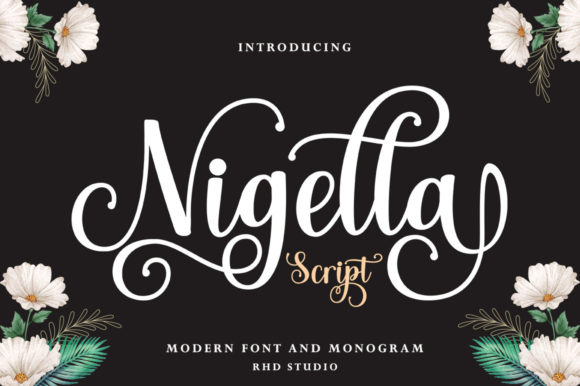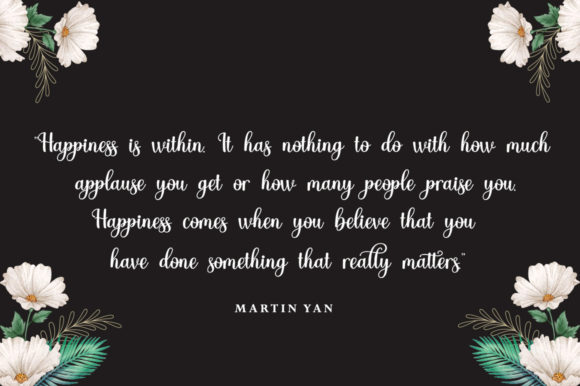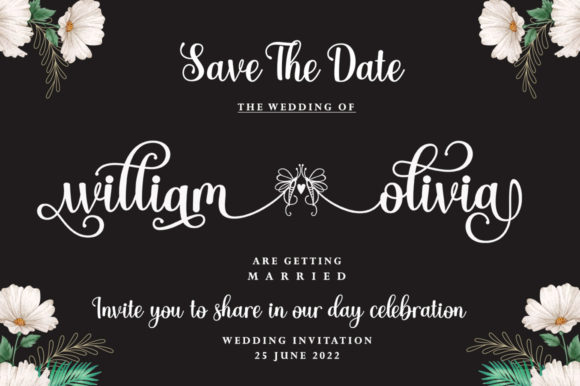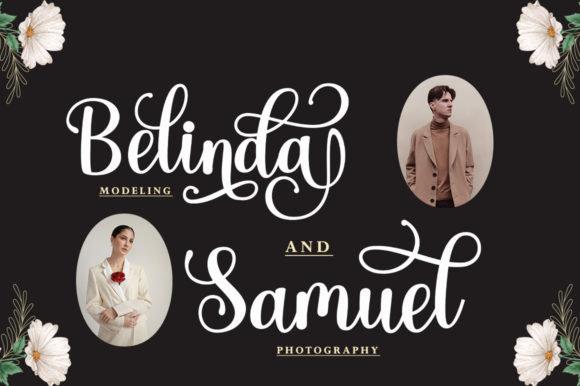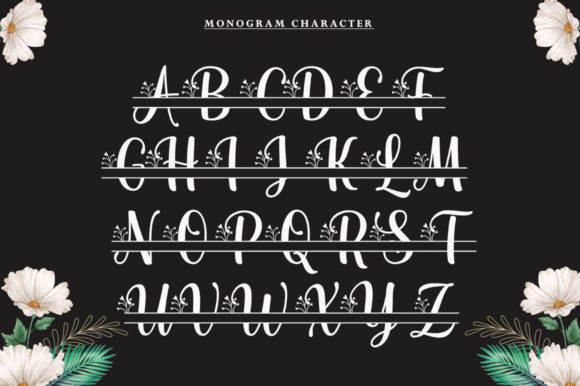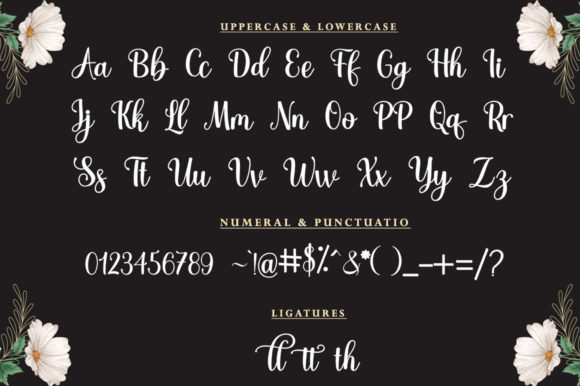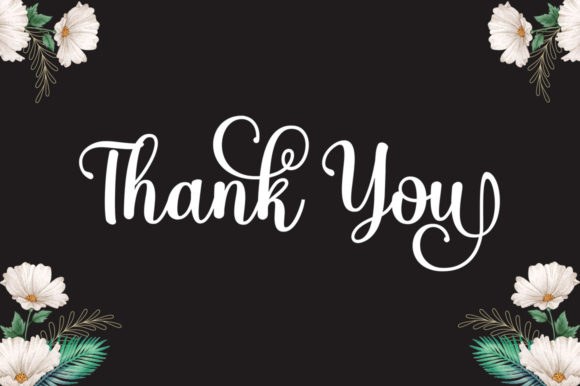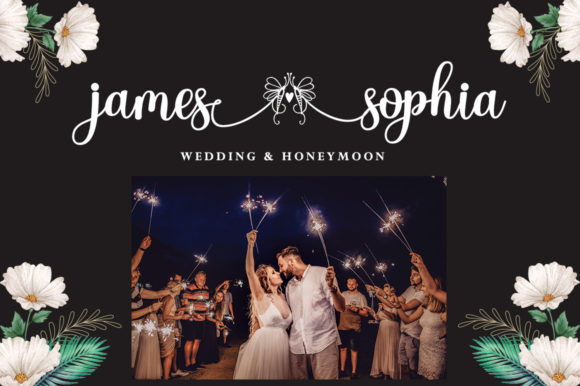
Nigella Script Font
About Nigella Script Font
Nigella Script is a stylish and delicate script font. Fall for its ravishing style and use it to create gorgeous designs. This font is PUA encoded which means you can access all glyphs and swashes with ease!